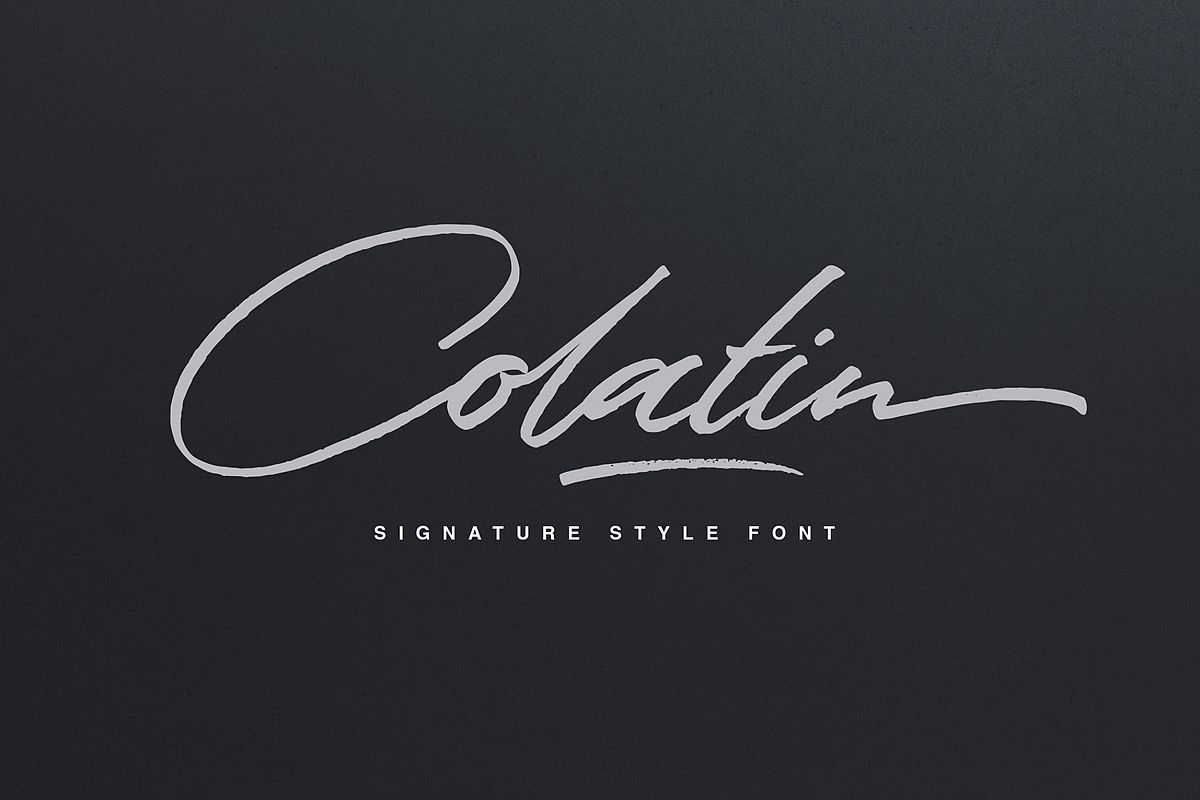
Colatin Script
Colatin Swashes
Colatin
Colatin is handmade signature style font with stunning characters. Ideal for logos, name tag, handwritten quotes, product packaging, merchandise, social media & greeting cards. It contains a full set of lower & uppercase letters, a large range of punctuation, numerals, and multilingual support.
The font also contains several ligatures and contextual alternates for lower case characters, accessible in the Adobe Illustrator Glyphs panel, or under Stylistic Alternates in the Adobe Photoshop OpenType menu. But If you don't have any OpenType specific software, you can still use Collatin as is with its standard lowercase and uppercase letters.